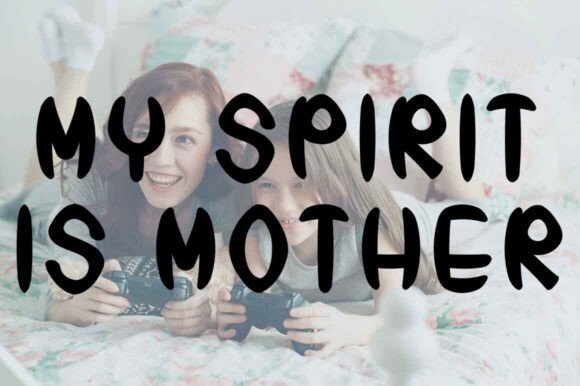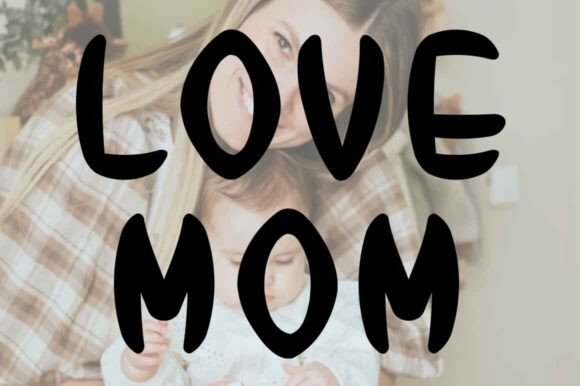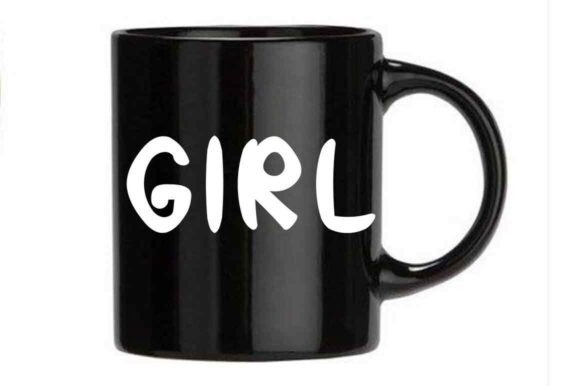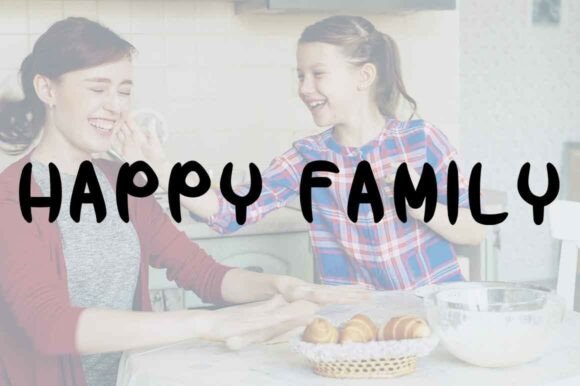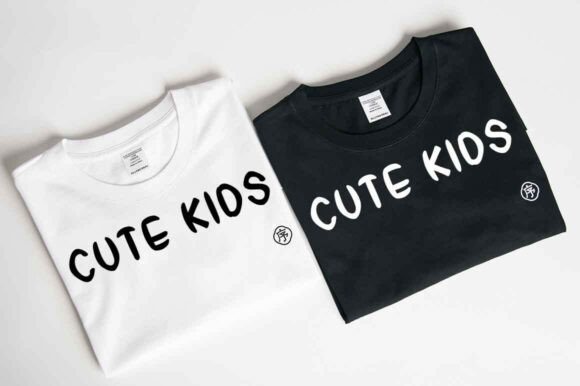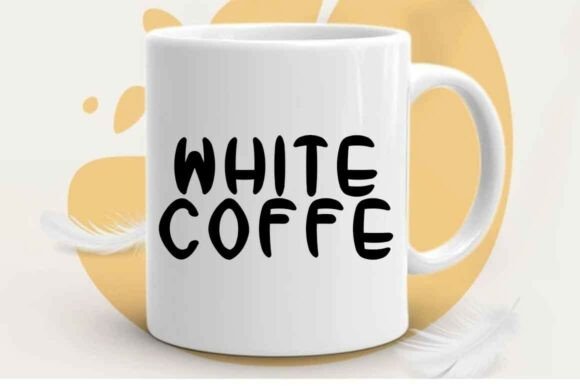
Introducing Happy Mother Font: The Perfect Addition to Your Design Arsenal
Are you tired of using the same old fonts in your designs? Do you want to add a touch of personality and whimsy to your work? Look no further than Happy Mother Font, a playful and stylish handwriting font that’s sure to bring a cheerful, modern vibe to your designs.
What is Happy Mother Font?
Happy Mother Font is a handwriting font that captures the essence of casual creativity. Its smooth, rounded strokes and expressive letters create a friendly and welcoming tone, perfect for adding warmth and personality to your work. Each letter flows naturally, giving your designs a handcrafted and authentic look.
Key Features of Happy Mother Font
- Playful and Stylish: Happy Mother Font is a playful and stylish handwriting font that’s perfect for designers who want to add a touch of whimsy to their work.
- Smooth and Rounded Strokes: The font features smooth, rounded strokes that create a friendly and welcoming tone.
- Expressive Letters: Each letter is carefully crafted to express a sense of personality and charm.
- Handcrafted Look: The font’s natural flow and handcrafted look make it perfect for designers who want to add a personal touch to their work.
Uses for Happy Mother Font
Happy Mother Font is versatile and can be used for a variety of design projects, including:
- Logos: Add a touch of personality to your logo with Happy Mother Font.
- Invitations: Create beautiful and unique invitations for special occasions.
- Greeting Cards: Add a personal touch to your greeting cards with Happy Mother Font.
- Posters: Create eye-catching posters that showcase your brand’s personality.
- Social Media Templates: Use Happy Mother Font to create engaging social media templates that stand out from the crowd.
Why Choose Happy Mother Font?
There are many reasons why Happy Mother Font is the perfect addition to your design arsenal. Here are just a few:
- Unique and Playful: Happy Mother Font is a unique and playful font that’s sure to set your designs apart.
- Easy to Read: The font is easy to read, making it perfect for body text and headlines.
- Versatile: Happy Mother Font can be used for a variety of design projects, from logos to social media templates.
- High-Quality: The font is high-quality and comes with a range of features, including smooth lines and expressive letters.
Tips for Using Happy Mother Font
Here are a few tips for using Happy Mother Font in your designs:
- Use it as a Headline Font: Happy Mother Font is perfect for headlines and titles.
- Pair it with Other Fonts: Pair Happy Mother Font with other fonts to create a unique and interesting look.
- Use it for Body Text: Happy Mother Font is easy to read, making it perfect for body text.
| Font Name | Happy Mother Font |
| Author | Shape Studio |
Happy Mother Font is a playful and stylish handwriting font that’s perfect for designers who want to add a touch of personality and whimsy to their work. With its smooth, rounded strokes and expressive letters, it’s sure to bring a cheerful, modern vibe to your designs. Whether you’re designing logos, invitations, greeting cards, posters, or social media templates, Happy Mother Font is the perfect addition to your design arsenal.